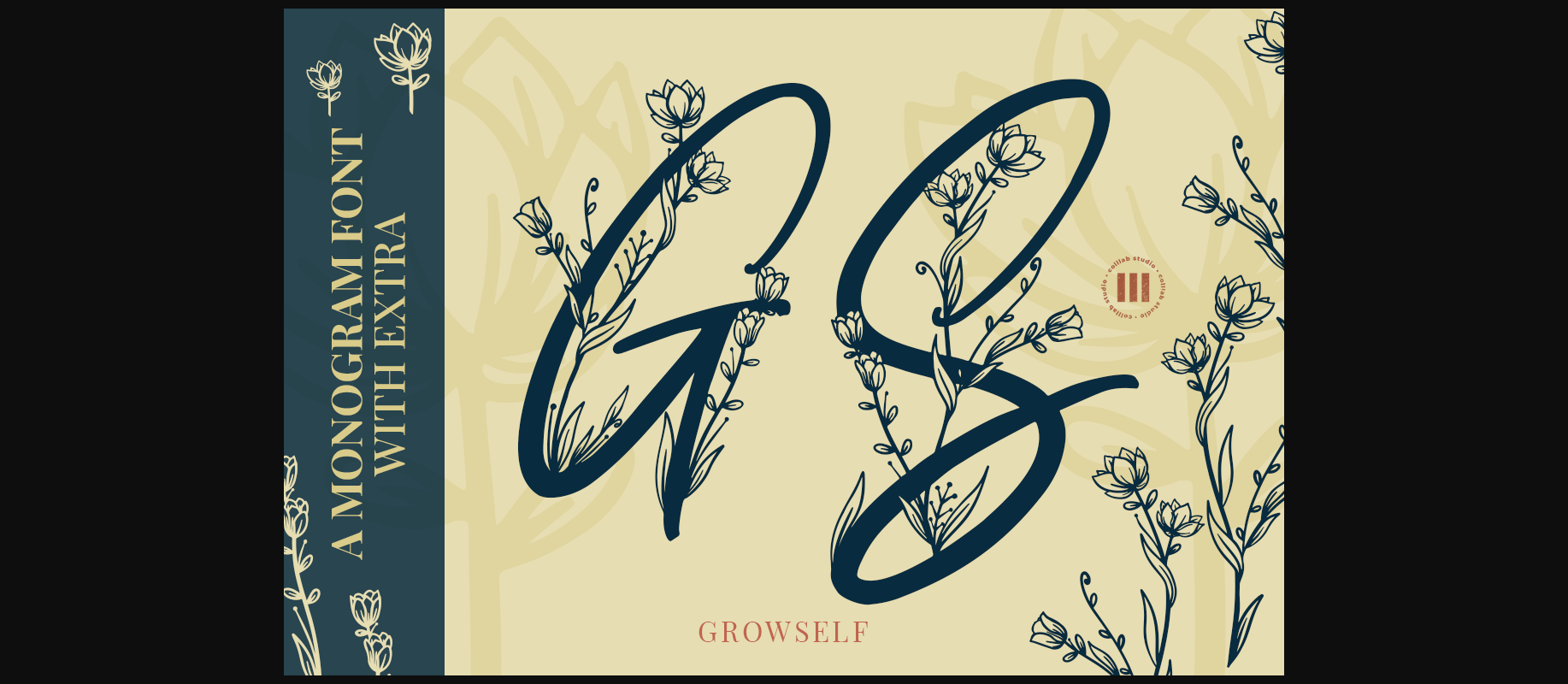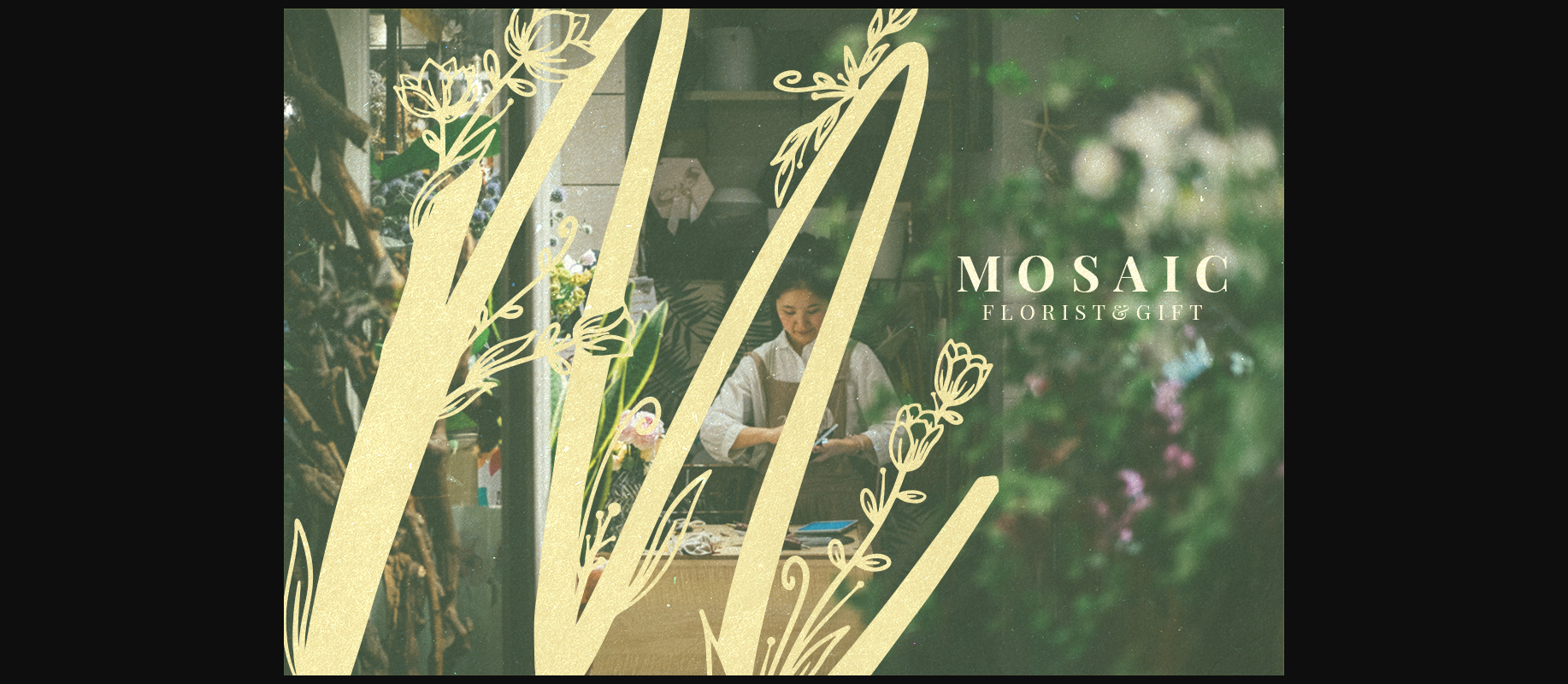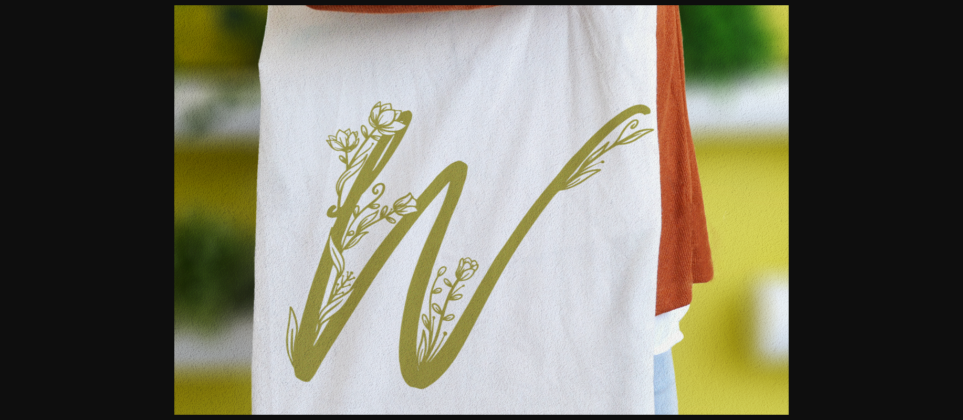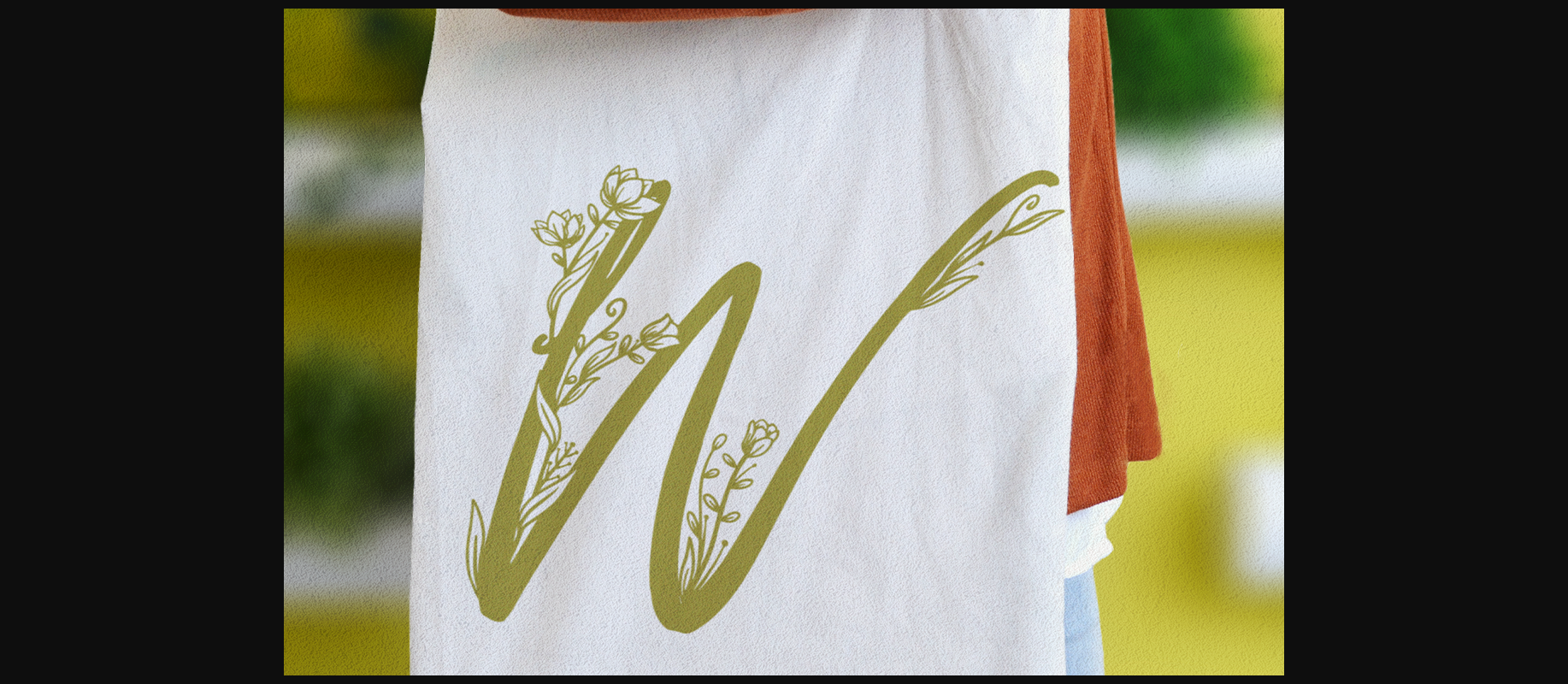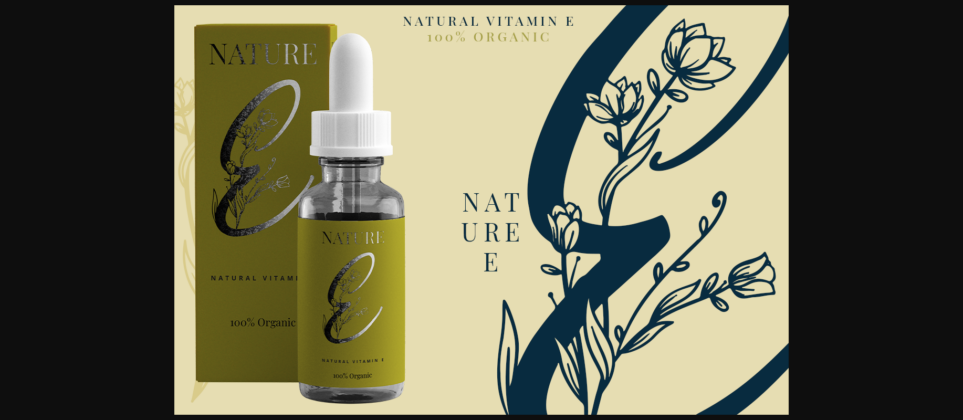
Growself Monogram Font
About Growself Monogram Font
Growself Monogram is a beautiful decorative font.Get inspired by its lovely feel and use it to create gorgeous wedding invitations, beautiful stationary art, eye-catching social media posts, and cute greeting cards.